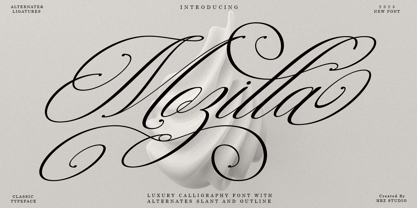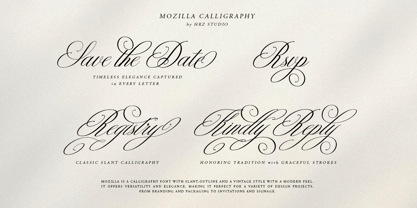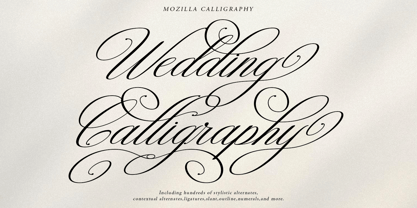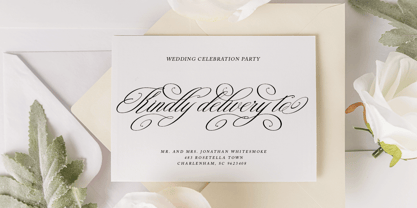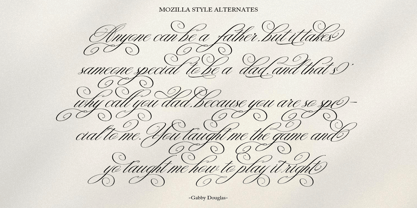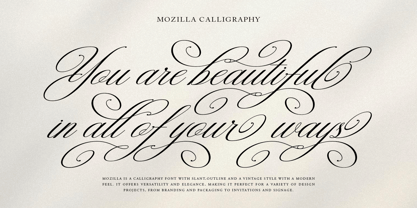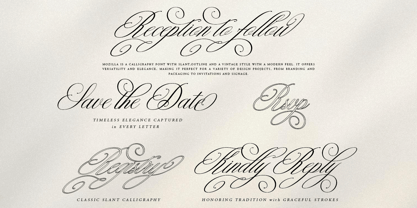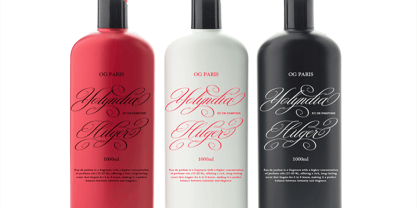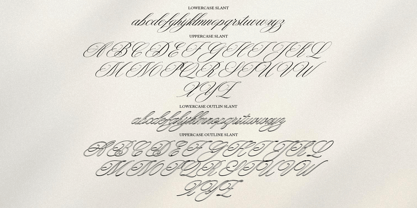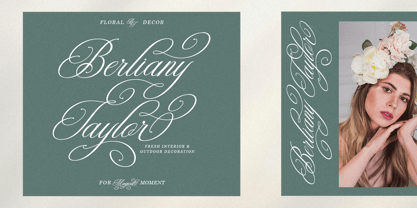
Mozilla Script
by Hrz Studio
The Mozilla Script Font Family was designed by Has Rizal and published by Hrz Studio. Mozilla Script contains 4 styles and family package options. More about this family
Mozilla Script is a calligraphy font that comes with very beautiful changing characters,Slant,Outline a type of classic decorative copper script with a modern touch, designed with high detail to convey stylish elegance. Mozilla Script is attractive because the typeface is smooth, clean, feminine, sensual, glamorous, simple and very easy to read, due to the many fancy letter connections. I also offer a number of viable style alternatives for many letters. The classic style is very suitable to be applied in various formal forms such as invitations, labels, restaurant menus, logos, fashion, make up, stationery, novels, magazines, books, greeting/wedding cards, packaging, labels or all kinds of advertising purposes.
Designers: Has Rizal
Foundry: Hrz Studio